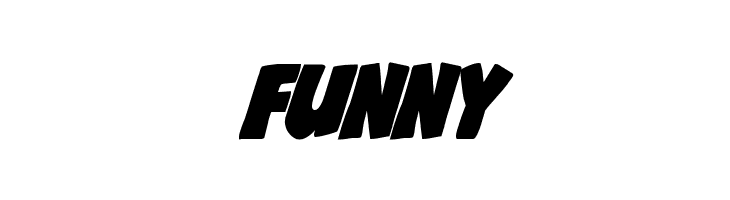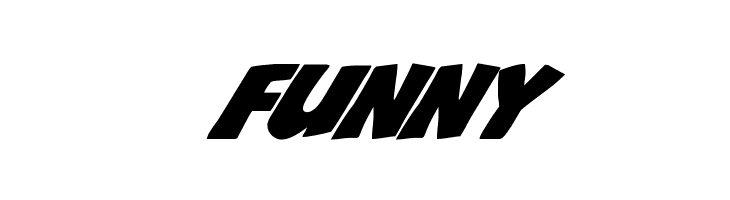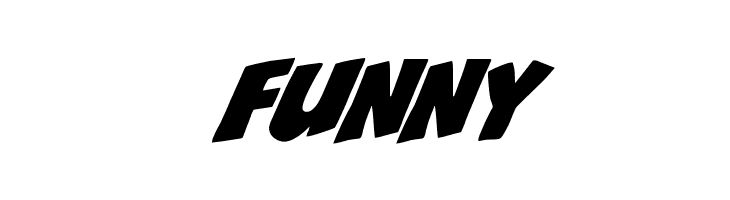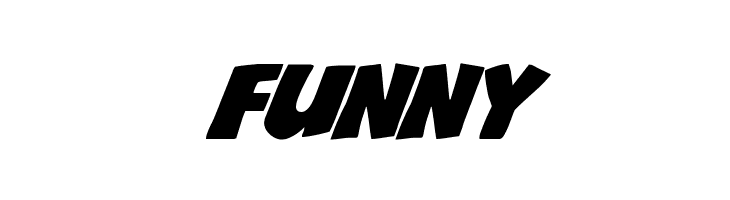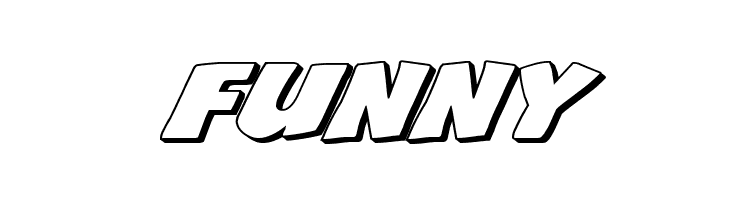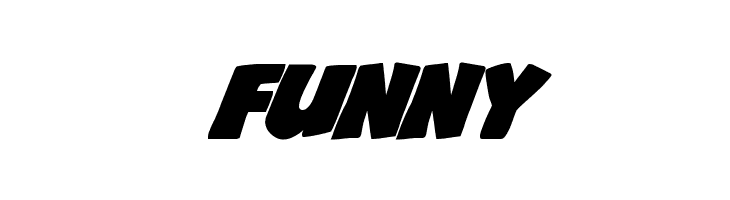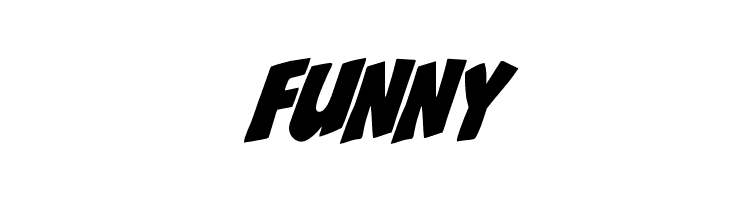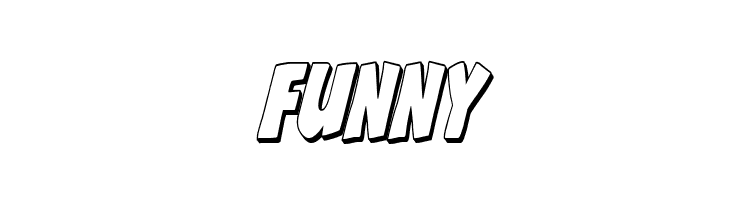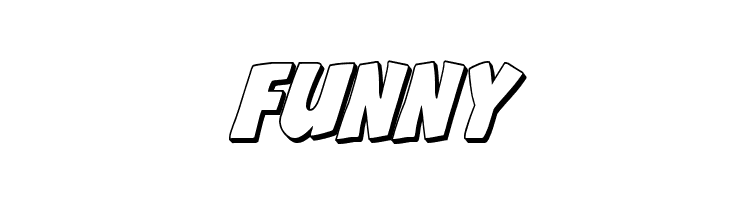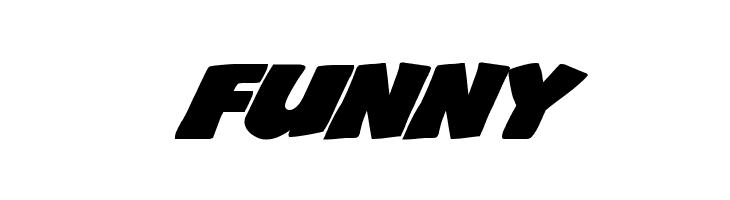
A geometric, art deco-inspired font with tall, narrow letterforms and sharp angles.
A modern, geometric font with an Art Deco influence, featuring thin, elongated letterforms.
An elegant, flowing script font with intricate loops and swirls.
A bold, hand-painted style font with dynamic, uneven strokes.
Decorative dingbat font with speech bubbles, banners, and ornate dividers.
A horror-themed font with jagged, dripping letterforms for a chilling effect.
A bold, decorative font with intricate detailing and vintage flair.
An illustrative, theatrical dingbat font with dramatic, hand-drawn imagery.
A bold, geometric font with sharp, angular edges and a modern, futuristic style.
A bold, angular, and modern font with a dynamic slant.
A bold, geometric font with sharp, angular edges and a modern, industrial feel.
A bold, angular, and italic font with a futuristic and dynamic style.
A bold, geometric font with sharp, angular edges for a modern look.
A bold, angular italic font with a modern and dynamic style.
A bold, angular serif font with a modern yet classic appeal.
A bold, angular serif font with an italic slant and geometric design.
A bold, geometric font with sharp, angular edges and a modern, futuristic style.
A sharp, angular sans-serif font with a dynamic, italicized style.
A bold, geometric font with sharp, angular edges and a modern aesthetic.
A bold, angular, and italicized font with a futuristic and modern style.
A bold, angular serif font with a vintage yet modern appeal.
A bold, angular serif font with a modern italic slant.
A bold, angular serif font with a modern, small caps style.
A bold, italic serif font with sharp, angular lines and a modern edge.
A bold, geometric font with a modern and angular design.
A bold, angular font with a strong geometric structure and tight spacing.
A bold, italicized serif font with angular features and a modern, rebellious style.
A bold, geometric slab serif font with a modern industrial feel.